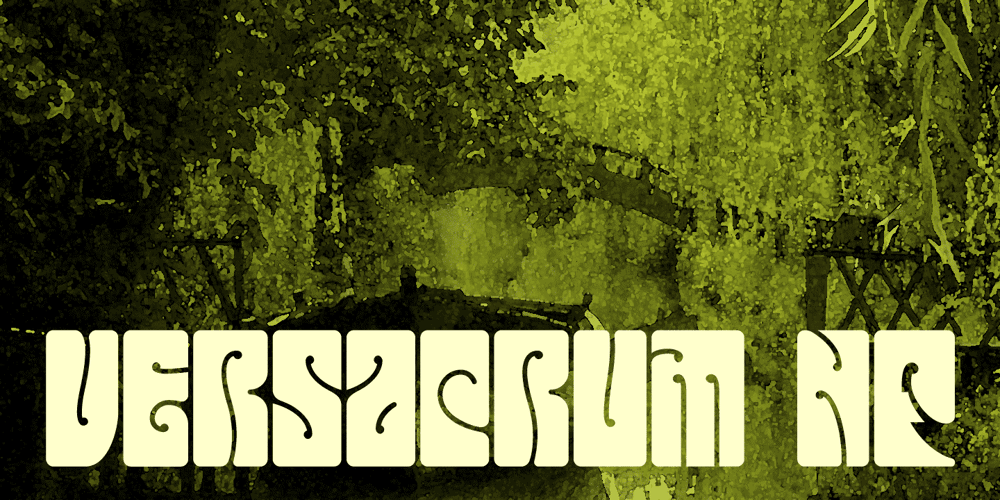
Versacrum NF
Versacrum NF Font Family was designed by Nick Curtis and published by Nick’s Fonts. Versacrum NF contains 1 styles and family package options. This typeface finds its inspiration from hand-lettering by Albert Roller for Ver Sacrum magazine in 1903, made famous by its revival on many psychedelic posters of the 1960s. Both flavors of this font feature the 1252 Latin, 1250 Central European, 1254 Turkish and 1257 Baltic character sets.